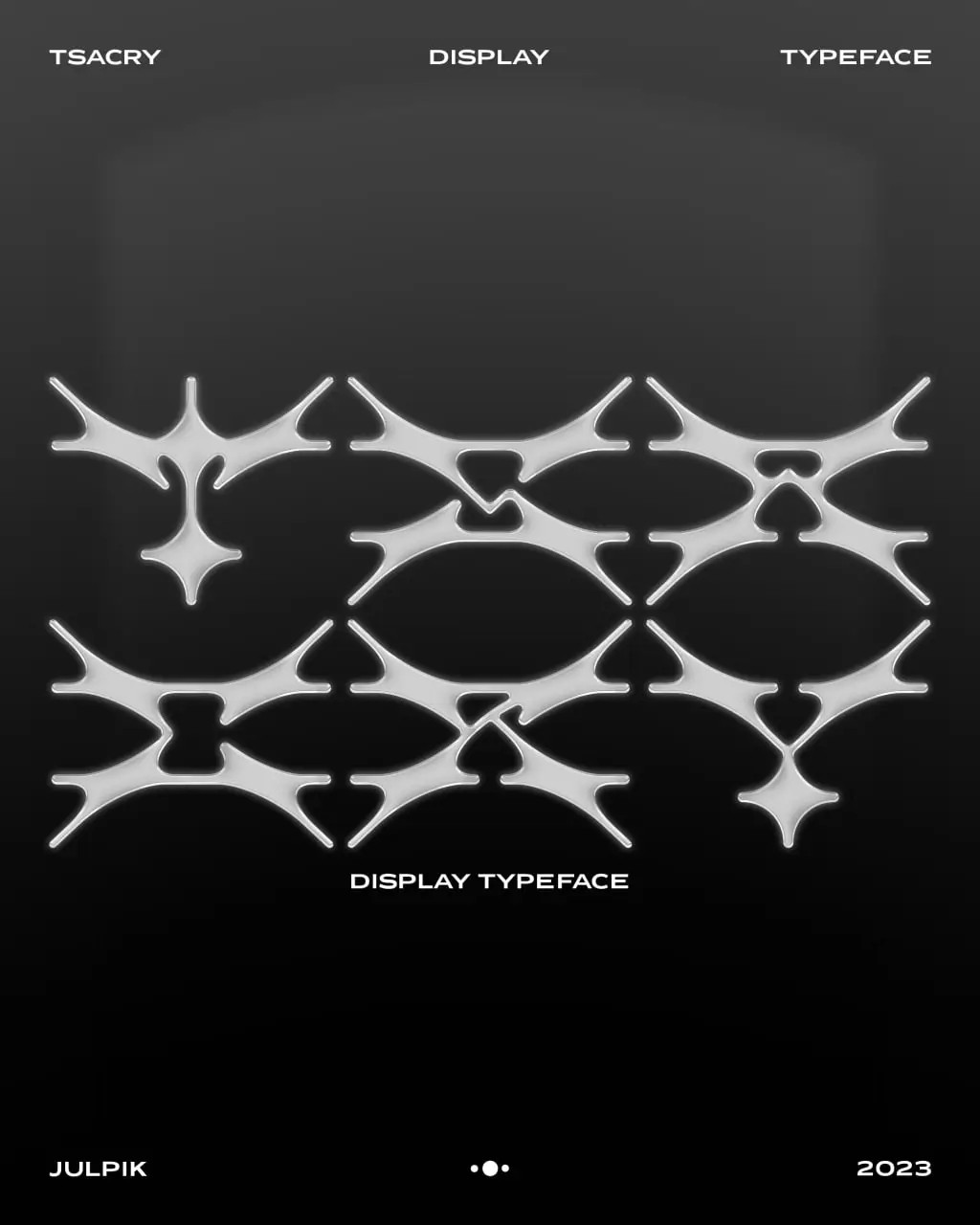
Tsacry Display Typeface
The Tsacry Display Typeface is a unique and eye-catching font designed for a variety of creative projects. With its bold and distinctive style, this typeface is perfect for making a statement in your designs.
• Stylish and modern display font
• Easy to read at various sizes
• Great for web design and print applications
• Use in UI projects for a modern touch